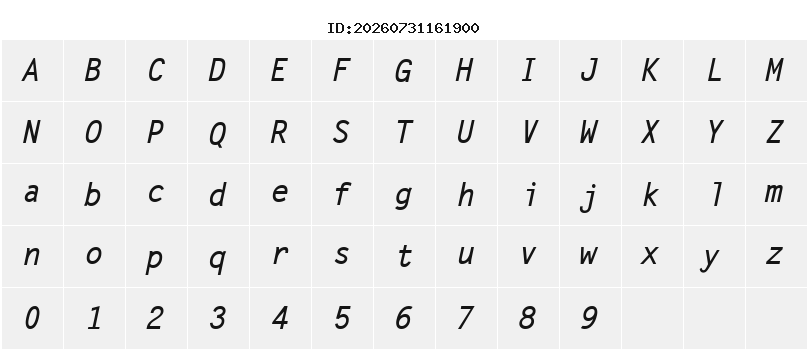
• Font Name: Letter Gothic
• Font Style: Gras Italique
• Font ID: Hewlett-Packard: Letter Gothic Bold Italic: Version 1.3 (Hewlett-Packard)
• Full Font Name: Letter Gothic Gras Italique
• Version: Version 1.3 (Hewlett-Packard)
• PostScript Name: LetterGothic-BoldItalic
• Character Count: 339
About Letter Gothic.ttf
Letter Gothic.ttf is a modern, elegant sans-serif font designed for ultimate readability and visual harmony. Perfect for branding, headlines, web design, and print materials.